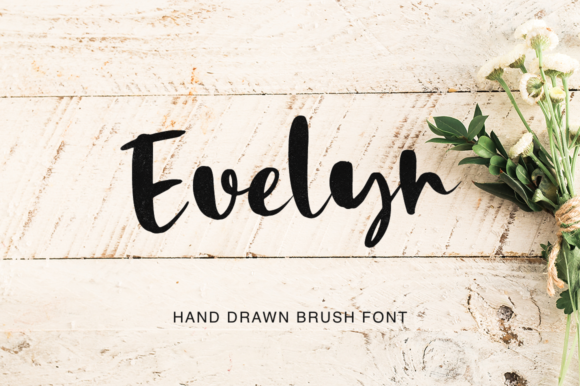
Get enthralled by the exquisite creation of Pasha Larin, the Evelyn Script Font. This enthralling font family, characterized by its chic and elegant design, is an ideal selection for crafting heartfelt letters that resonate with authenticity and grace. Immerse yourself in the world of Evelyn and let your words dance upon the page with an artistic flair that captures the essence of your emotions.
Step into a realm where traditional calligraphy and contemporary aesthetics intertwine, giving birth to masterpieces that speak volumes. With Evelyn as your chosen font, your letters will transcend mere words, transforming into visual symphonies that elicit emotions and leave a lasting impression. Unleash the power of this script and watch as your words ignite hearts and minds, conveying messages with an impact that lingers long after the page is turned.
Imagine the joy of receiving a letter penned with the Evelyn Script Font. The graceful curves and expressive flourishes of each character embrace the reader in a warm embrace, inviting them to embark on a journey through your words. The authenticity embedded within every stroke adds a personal touch that resonates deeply, fostering a connection that transcends the boundaries of distance.
Engage your audience with the elegance of Evelyn Script, a font that transforms the ordinary into the extraordinary. Its timeless beauty transcends trends, ensuring that your letters retain their charm and relevance for years to come. Let your words dance across the page, guided by the artistry of Evelyn, and create documents that radiate sophistication and grace.